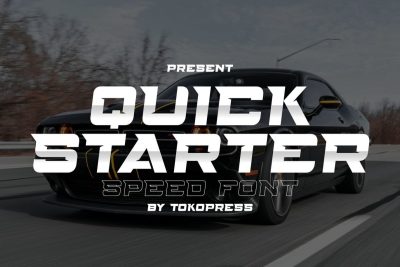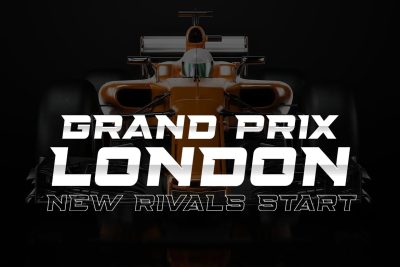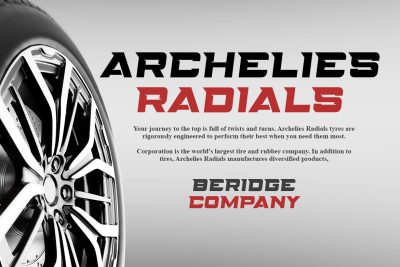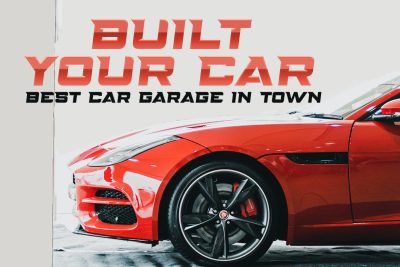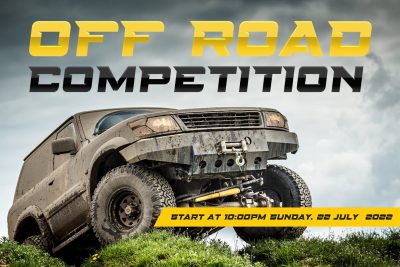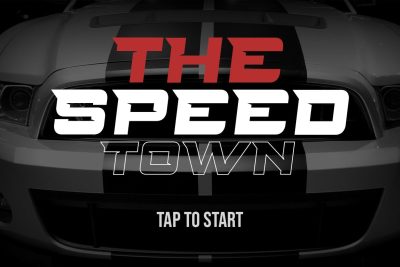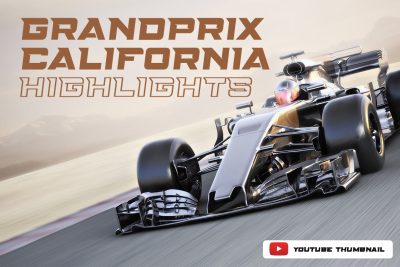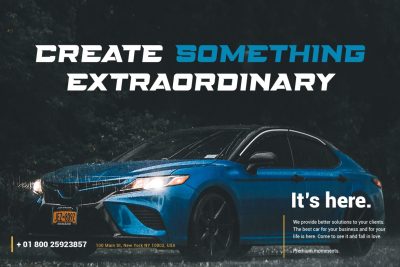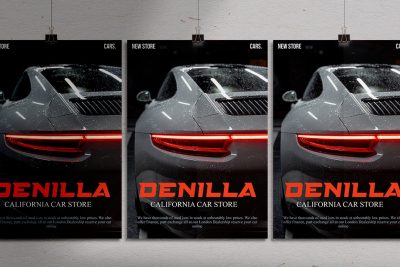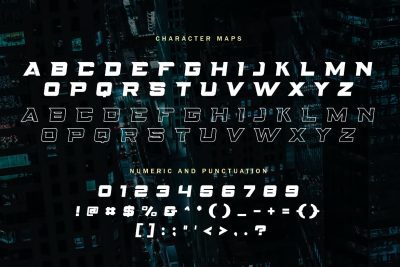
If youโre looking for a dynamic and stylish typeface that embodies speed and modernity, the Futuristic Font Quickstarter is your ultimate solution. Designed with bold, geometric shapes and a sleek futuristic appeal, this font is perfect for projects that demand energy and innovation. Whether you’re working on branding, automotive designs, or digital interfaces, Quickstarter ensures your content stands out with its cutting-edge aesthetics.
The Futuristic Font Quickstarter is crafted to exude power and agility. Itโs an excellent choice for brands and creators who want to emphasize forward-thinking and action-oriented themes. The fontโs sharp angles and clean lines mimic the swift movements of a high-performance vehicle. This makes it ideal for automotive campaigns, sports advertisements, and technology-focused visuals. It integrates seamlessly into posters, websites, and packaging, ensuring your message remains impactful and unforgettable.
Additionally, this font is optimized for both digital and physical outputs. Whether you need crisp visuals for large-scale banners or responsive designs for mobile apps, Quickstarter delivers consistent quality. Its adaptability ensures that your creative projects maintain their professional edge regardless of the medium used.
Unleash Creativity with Futuristic Font Quickstarter
The Quickstarter font offers unmatched versatility and adaptability, catering to diverse design needs. Its futuristic design captures attention while conveying professionalism and sophistication. With bold characters, this font thrives in headlines, logos, and promotional materials, creating an instant connection with viewers.
Designed to be user-friendly and compatible with various platforms, Quickstarter ensures seamless functionality across digital and print mediums. Whether you’re designing for social media, creating presentations, or enhancing user interfaces, this font adds a modern edge to your work. Its structured, balanced appearance ensures readability while maintaining a strong visual presence, allowing your designs to communicate effectively.
Transitioning between creativity and practicality, Quickstarter empowers designers to push boundaries while maintaining clarity and focus. Its futuristic tone is ideal for industries such as gaming, entertainment, and automotiveโwhere innovation takes center stage. Additionally, the font’s unique aesthetic sets the tone for bold storytelling and engaging visual narratives.
Moreover, its ease of use makes it a favorite among designers with tight deadlines. The well-thought-out letterforms reduce the time spent on adjustments, allowing creators to focus more on conceptual development. This feature makes Quickstarter not just a tool but a dependable partner in achieving design excellence.